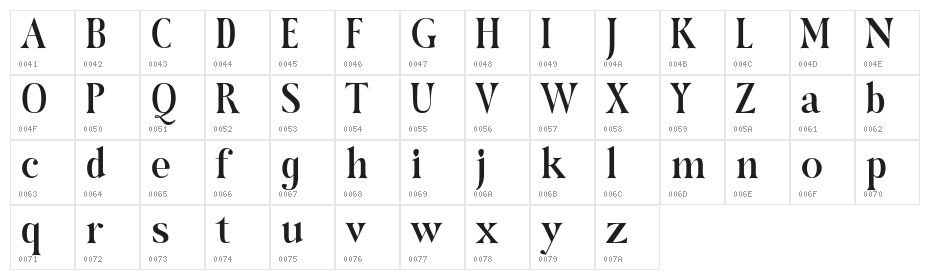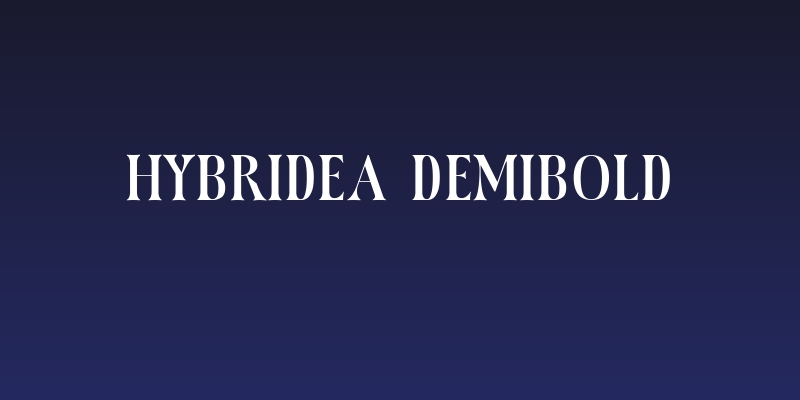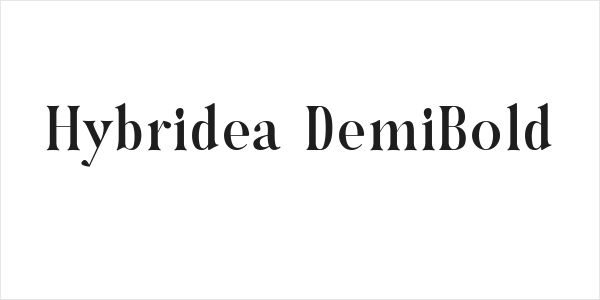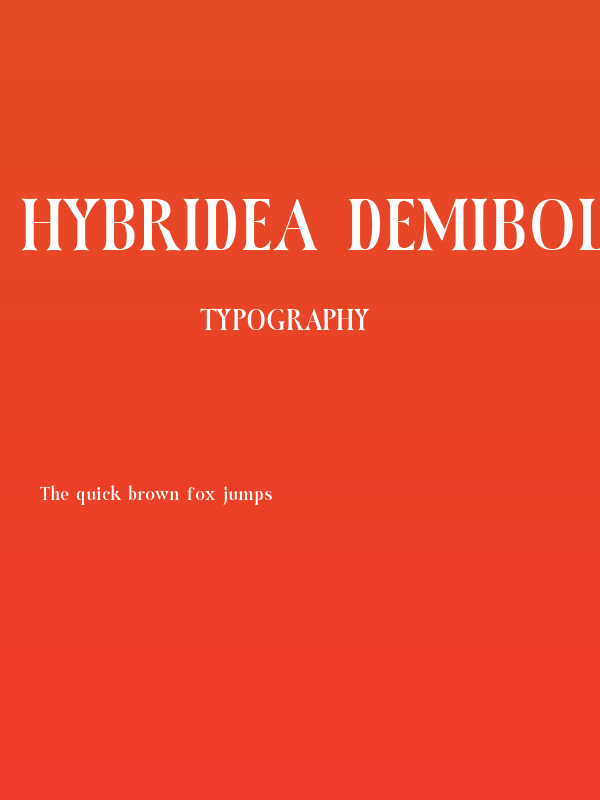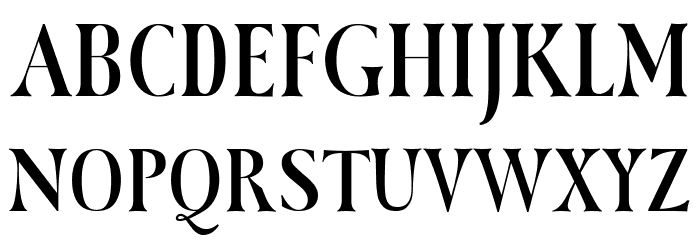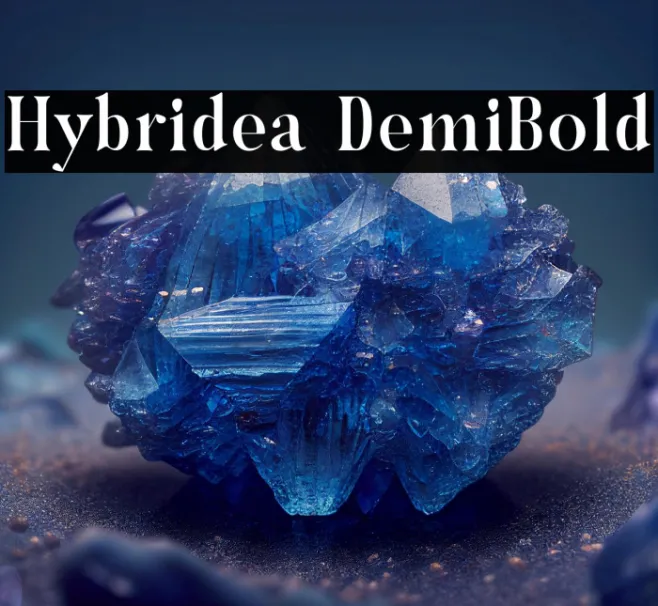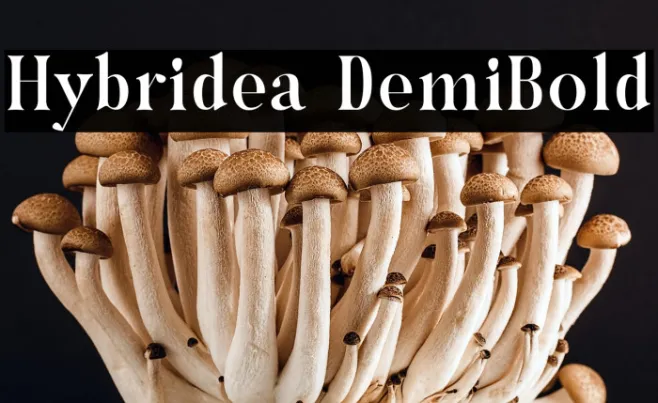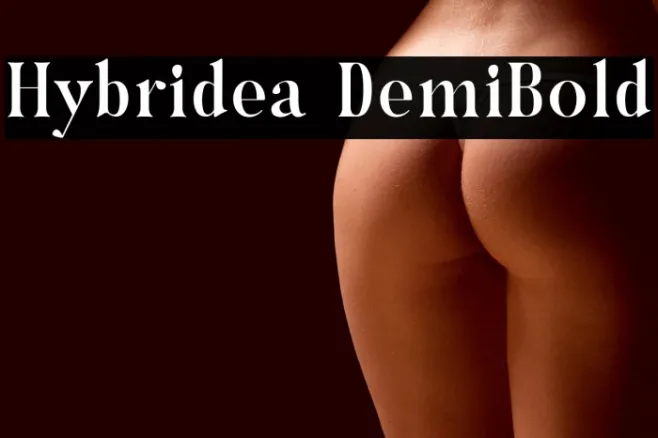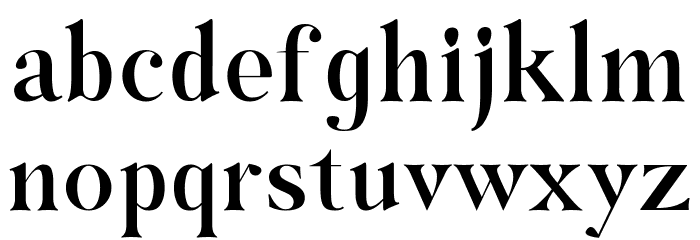
Hybridea DemiBold Font
Hybridea DemiBold Description
This font features a distinctive blend of classic and modern elements, characterized by its sharp serifs and elegant curves. The uppercase letters exhibit a strong presence with their bold strokes and slightly condensed forms, while the lowercase letters maintain a harmonious flow with a touch of flair in their tails and ascenders. The overall design is balanced, offering a medium contrast between thick and thin strokes, which enhances readability while adding a touch of sophistication. The font's unique style makes it suitable for a variety of design applications, providing both visual impact and clarity.
| Use Case | Headlines, Logos, Editorial design |
| Proposed Projects | Ideal for branding, editorial design, book covers, and high-end product packaging. |